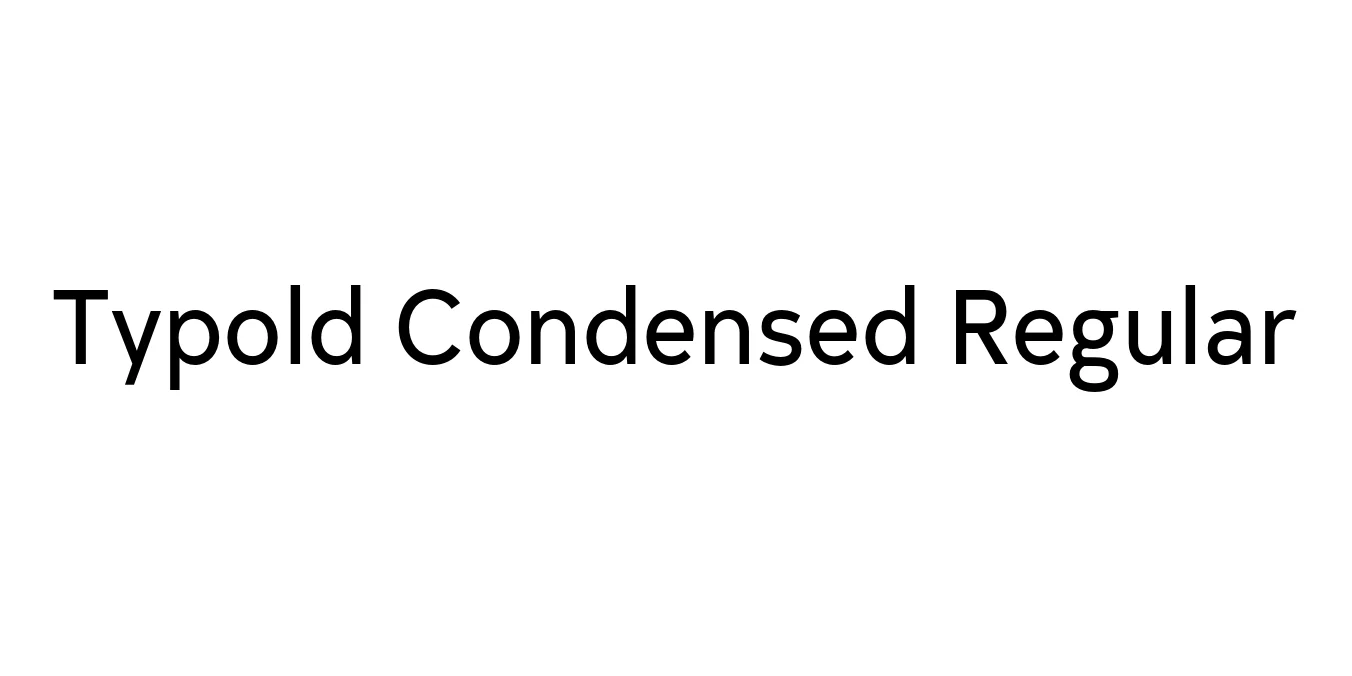
Typold Condensed Regular
Designed by Jonathan Hill
Typold Condensed Regular is a sophisticated geometric sans serif typeface designed by Jonathan Hill of The Northern Block. It represents a refined evolution of the original Typold family, engineered specifically to balance geometric precision with high-performance legibility in modern digital and print environments. The condensed proportions are meticulously crafted to maximize horizontal space efficiency without losing the distinctive architectural character that defines the typeface.
The design focuses on a clean, technical aesthetic, making it a versatile tool for designers who require a structured yet approachable look. Its balanced stroke weights and open counters ensure that it remains readable even in complex layouts or at smaller sizes. This makes Typold Condensed Regular a popular choice for information-heavy contexts, such as user interfaces, technical documentation, and contemporary corporate branding initiatives.
Typold Condensed Regular Best Uses
Excellent for space-constrained UI elements and small screen displays.
Perfect for headlines and sidebars in magazines or newspapers.
Provides a professional, modern look for branding and logotypes.
High legibility in dense informational layouts and data visualization.